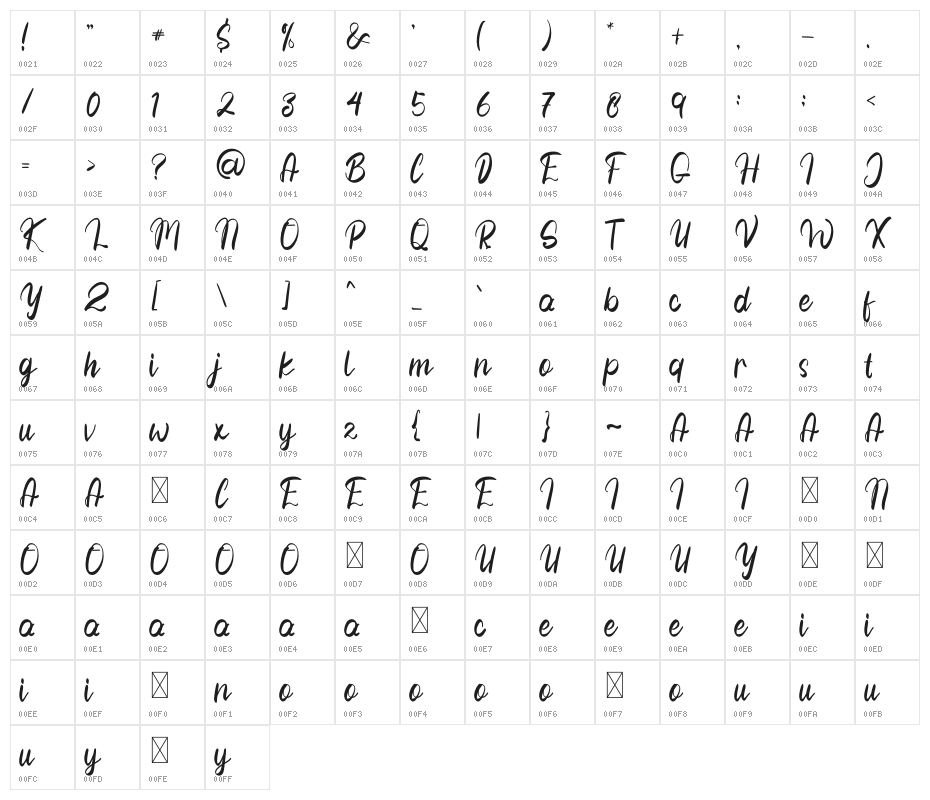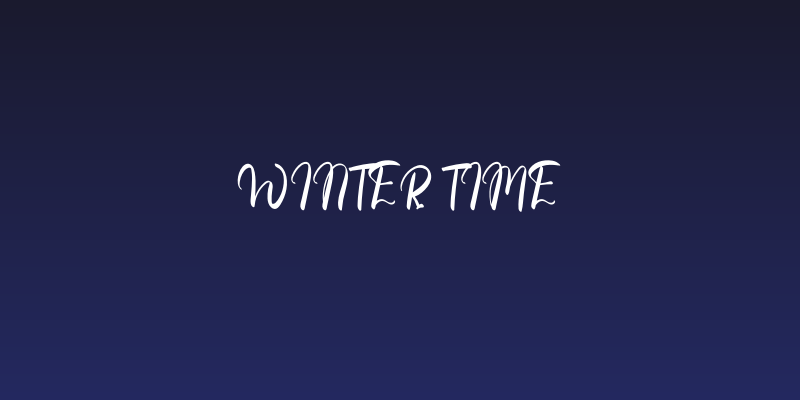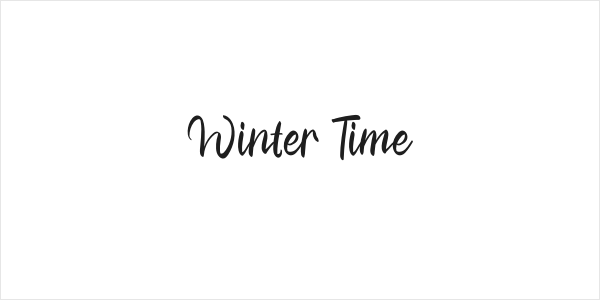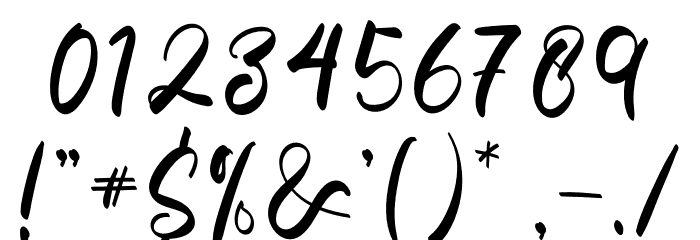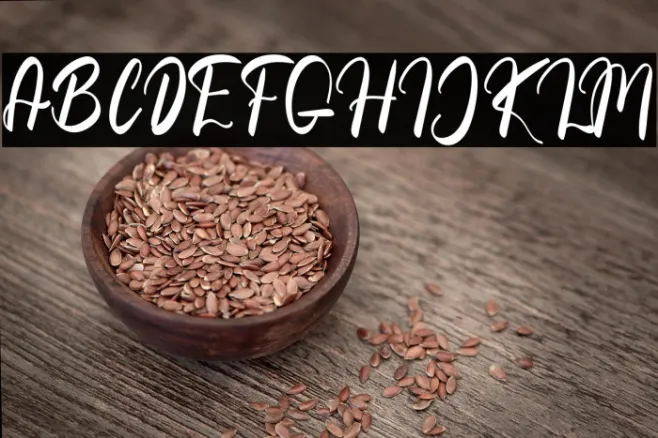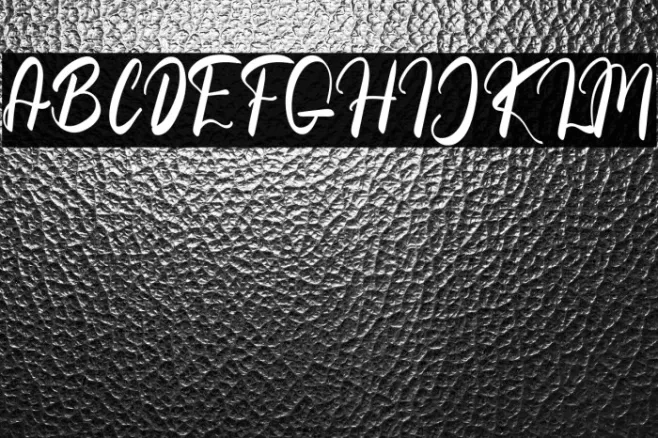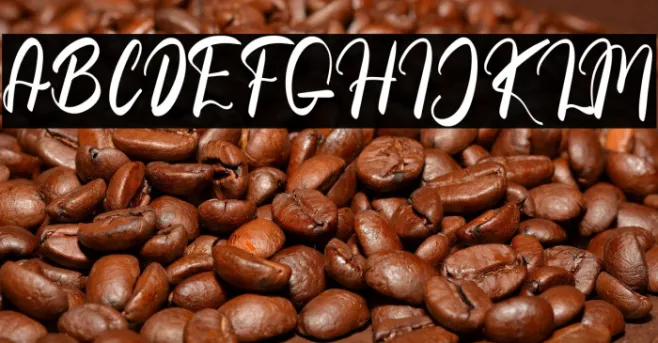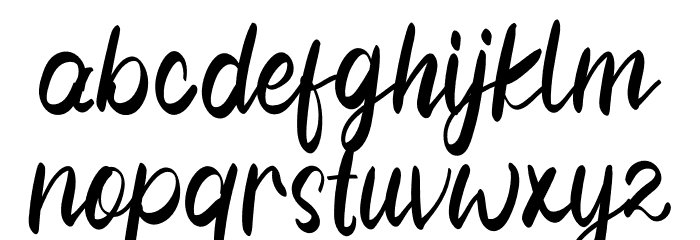
Winter Time Font
Winter Time Description
This font features a lively and expressive script style, characterized by its fluid and dynamic strokes. The letters are interconnected, giving it a handwritten appearance that is both elegant and casual. The uppercase letters are bold and slightly slanted, while the lowercase letters maintain a consistent flow with varying stroke widths. The numerals and special characters complement the overall style, adding to its versatility. This font is well-suited for projects that require a personal touch, such as invitations, greeting cards, and branding materials.
| Proposed Projects | Ideal for invitations, greeting cards, branding, and any project needing a personal touch. |